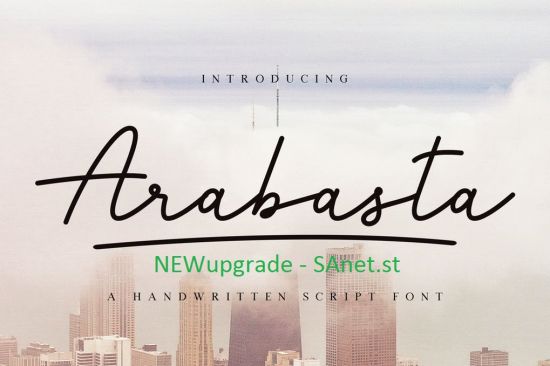
Are you looking for a simple and elegant handwriting font? We can help! Try to download our Arabasta font. The font is suitable to use for casual purpose. Try to use it on Wedding invitation, photography, branding and signature to see the best of it :)
Basic Latin A-Z and a-z
Numbers
Punctuation